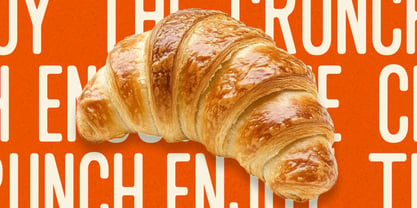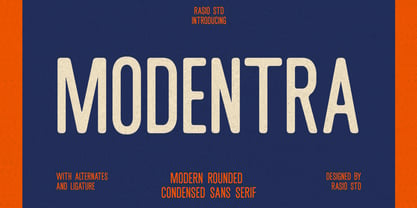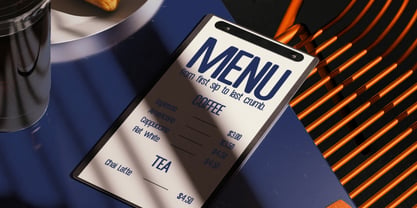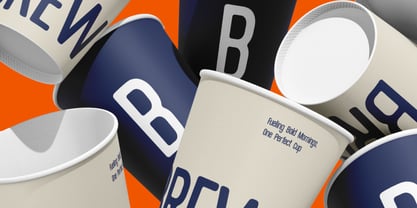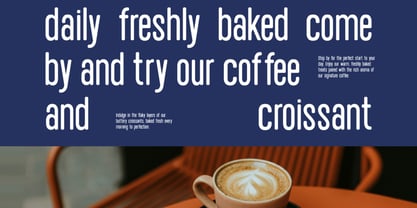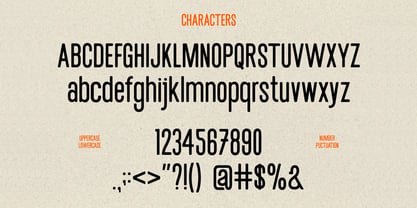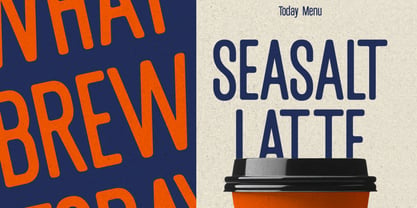
Modentra
by Rasio Studio
Modentra is a modern sans serif typeface combining rounded edges with a condensed structure for a bold yet friendly impression. Its clean lines and subtle curves create a contemporary industrial aesthetic that balances strength and approachability. Perfect for headlines, posters, branding, and vintage-inspired layouts that need a modern twist. With uppercase, lowercase, numerals, punctuation, alternates, and ligatures, Modentra delivers versatility and personality in every design — a strong, adaptable font that fits both retro and modern creative styles.